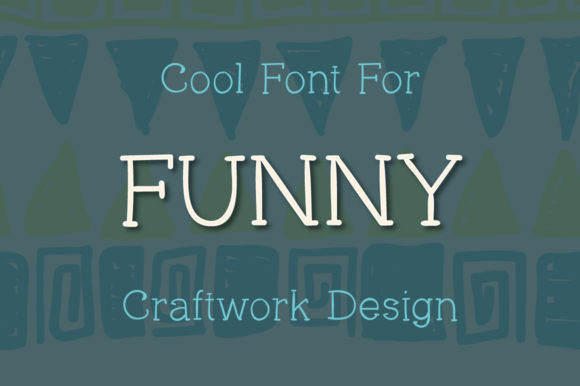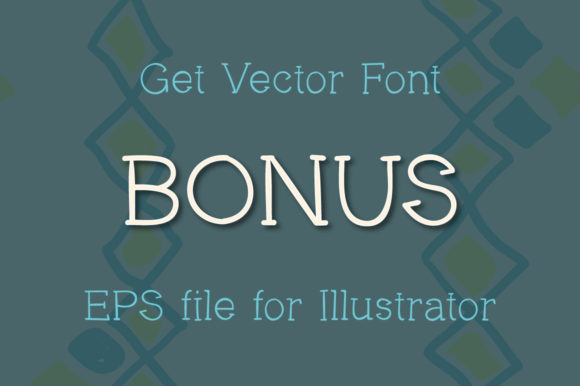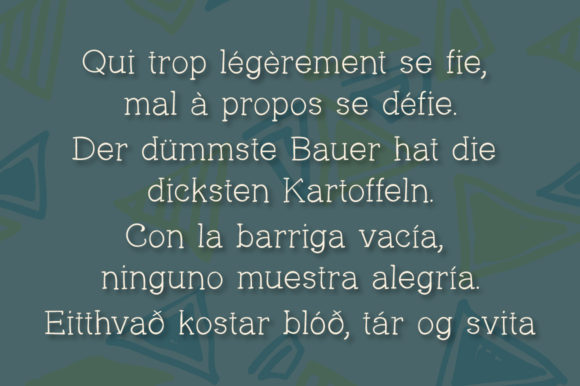
Introduction to Justhand Font Font
Fonts play a crucial role in design, and the Justhand Font font is a typeface that brings both character and versatility to any project. Whether you’re working on a branding project, a website, or a print design, the Justhand Font font offers a unique style that can elevate your work.
Justhand is a cool, neat and unique display font.
This font is ideal for writing web designs, business cards, or pretty much anything else that requires a clean touch .
Key Features of Justhand Font Font
Why Choose Justhand Font Font?
The Justhand Font font is more than just a typeface – it’s a design tool that helps you communicate your message with style and clarity. Its unique character set and versatile design make it suitable for a wide range of applications, from elegant invitations to bold headlines.
With its carefully crafted letterforms and balanced proportions, the Justhand Font font ensures readability and visual appeal across all mediums.
What makes Justhand Font font special?
The Justhand Font font stands out with its unique design, exceptional readability, and versatility across various design applications.